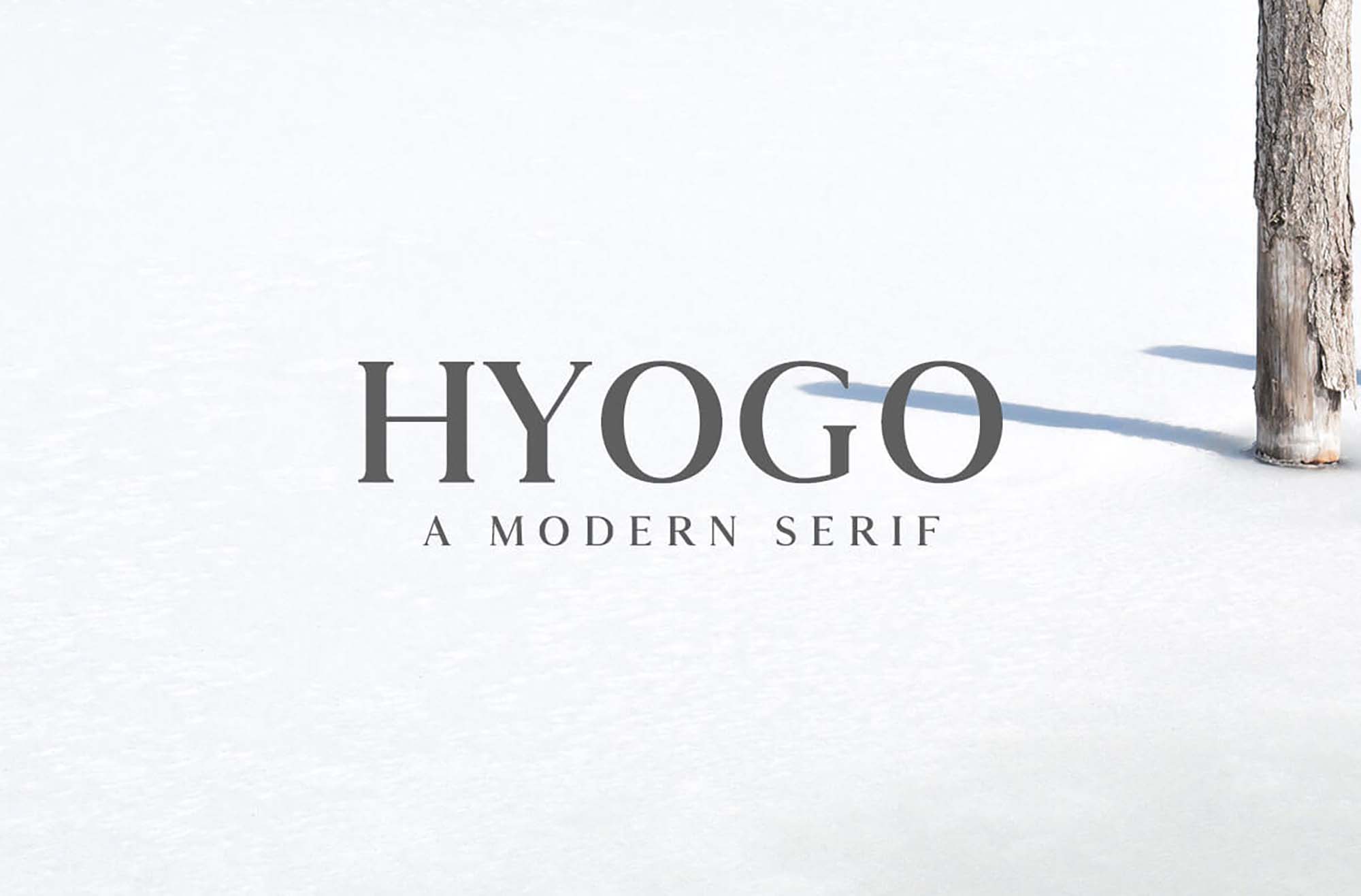
No project is ever well done without the insertion of titles and information using a glorious font; because pictures are worth a thousand words, but not to graphic designers. This is why today we gladly share with you this serif font for users that need that one thing that brings the whole project together.
Licença: Hyogo offers a modern twist and an attractive vibe, allowing it to be perfect for posters, flyers, branding and packaging projects, logos, website headlines, books, magazines, cards of all kinds, etc. The combination of uppercase letters and numbers provides a charming attitude that renders your designs the center of attention in a split second. Hyogo is free for both personal and commercial use, and it comes in multiple formats including OTF, TTF, and web font kit file formats giving you more comfort when it comes to the programs you choose to use.